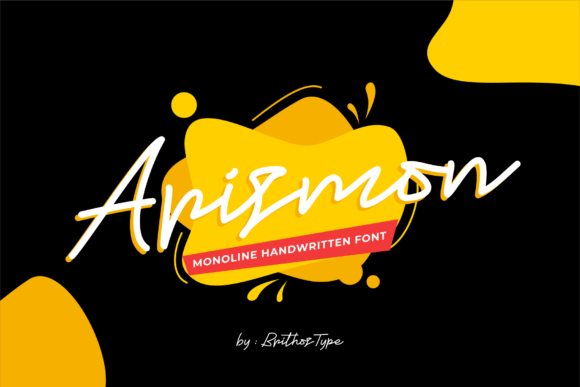
Adorn your designs with Arismon, an enchanting script font family that will transform your creative vision into visual masterpieces. Crafted with meticulous attention to detail, this font exudes a captivating harmony that instantly elevates any project it graces.
Journey into a world of endless possibilities with Arismon. Its graceful curves and flowing lines infuse your designs with an undeniable allure, evoking a sense of timeless elegance. Whether you're a seasoned designer or just starting your creative journey, Arismon will effortlessly enhance the visual impact of your work.
Discover the versatility of this extraordinary font, seamlessly adaptable to any project that demands a touch of charm and sophistication. From eye-catching logos that command attention to stunning invitations that leave a lasting impression, Arismon is your secret weapon to create designs that captivate and engage.
Unleash your creativity and let Arismon unlock the full potential of your design endeavors. Its effortless beauty will bring a smile to your face, transforming the ordinary into the extraordinary. Embrace the artistry of Arismon and watch as your designs take flight, soaring to new heights of visual excellence.